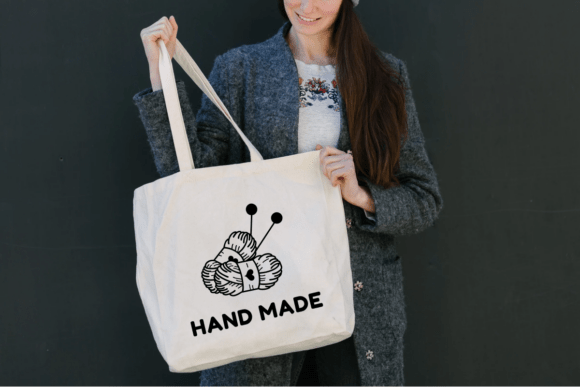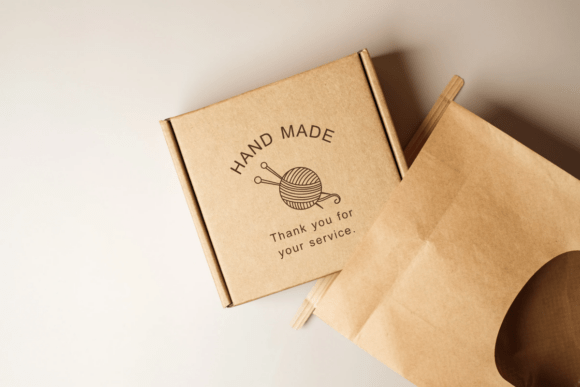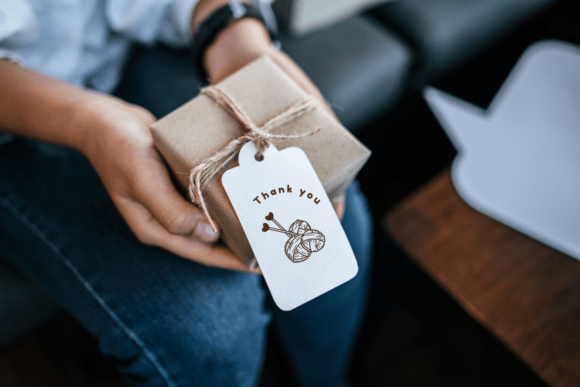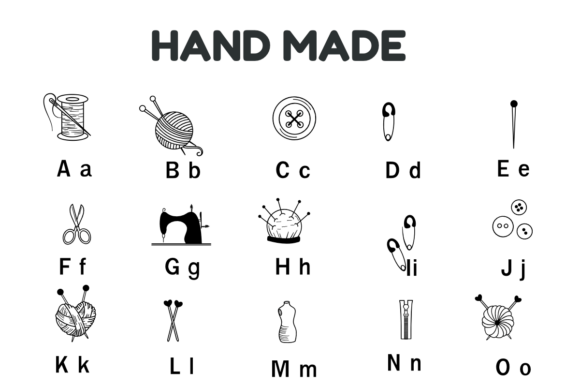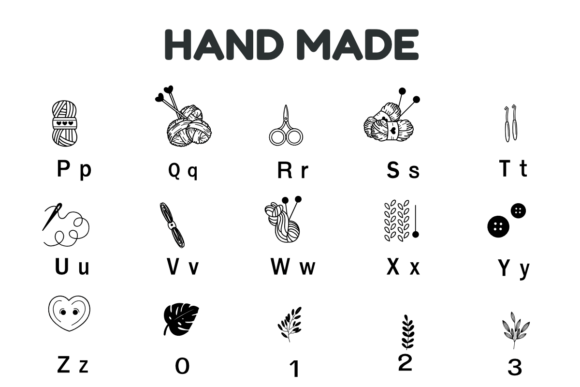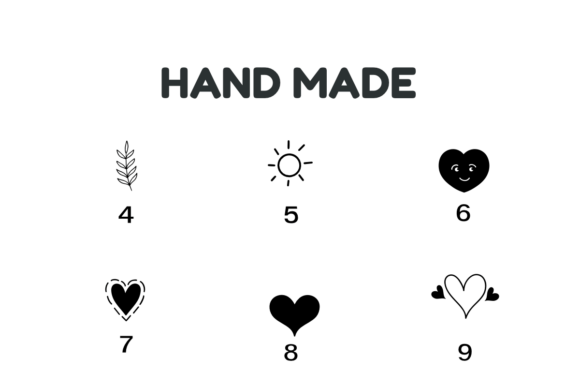
Introducing Hand Made: A Unique Dingbats Font for Creative Projects
Are you a designer, crafter, or DIY enthusiast looking for a font that can add a personal touch to your creative projects? Look no further than Hand Made, a beautiful dingbats font with a sketched style that’s perfect for a wide range of applications. In this article, we’ll explore the features and benefits of Hand Made, and show you how it can enhance your wedding invitations, DIY projects, crafts, decorations, logos, and many other creative ideas.
What is Hand Made Font?
Hand Made is a unique dingbats font that features a charming, hand-sketched style. The font is designed to resemble handwritten illustrations, with each character and symbol carefully crafted to give your projects a personal, homemade feel. With Hand Made, you can add a touch of warmth and personality to your designs, making them stand out from the crowd.
Key Features of Hand Made Font
- Hand-sketched style: Hand Made features a distinctive, hand-sketched style that’s perfect for adding a personal touch to your projects.
- Dingbats font: As a dingbats font, Hand Made includes a wide range of symbols, icons, and characters that can be used to enhance your designs.
- Versatile: Hand Made can be used for a wide range of creative projects, from wedding invitations and DIY crafts to logos and decorations.
Using Hand Made for Wedding Invitations
Wedding invitations are a great way to showcase your personal style, and Hand Made is the perfect font to use. With its charming, hand-sketched style, Hand Made can add a touch of romance and whimsy to your wedding invitations. Use it to create custom illustrations, decorate your text, or add special symbols and icons to make your invitations truly unique.
Using Hand Made for DIY Projects
DIY projects are all about creativity and self-expression, and Hand Made is the perfect font to use. Whether you’re making handmade cards, gift tags, or decorations, Hand Made can add a personal touch to your projects. Use it to create custom illustrations, add decorative elements, or enhance your text with a touch of personality.
Using Hand Made for Crafts and Decorations
Hand Made is also perfect for crafters and decorators who want to add a personal touch to their projects. Use it to create custom signs, decorate your walls, or add special details to your crafts and decorations. With Hand Made, you can create unique and eye-catching designs that reflect your personality and style.
Using Hand Made for Logos and Branding
Hand Made is not just limited to personal projects – it can also be used for logos and branding. With its unique, hand-sketched style, Hand Made can help you create a distinctive and memorable brand identity. Use it to create custom logos, icons, or illustrations that reflect your brand’s personality and values.
Tips and Tricks for Using Hand Made
- Experiment with different sizes and colors: Hand Made looks great in a variety of sizes and colors, so don’t be afraid to experiment and find the perfect combination for your project.
- Mix and match with other fonts: Hand Made can be paired with other fonts to create a unique and interesting look. Try combining it with a serif or sans-serif font for a contrasting effect.
- Use it to add a personal touch: Hand Made is all about adding a personal touch to your projects. Use it to create custom illustrations, add decorative elements, or enhance your text with a touch of personality.
Hand Made is a unique and versatile dingbats font that’s perfect for designers, crafters, and DIY enthusiasts. With its charming, hand-sketched style and wide range of symbols and characters, Hand Made can enhance a wide range of creative projects, from wedding invitations and DIY crafts to logos and decorations. Whether you’re looking to add a personal touch to your designs or create a distinctive brand identity, Hand Made is the perfect font to use.